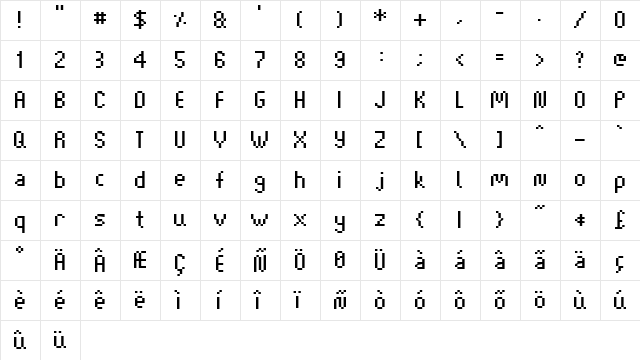
Bless Medium
Design Context for Bless Typeface
Bless takes a measured approach to typography — its balanced proportions and neutral character make it a reliable workhorse for both digital and print work.